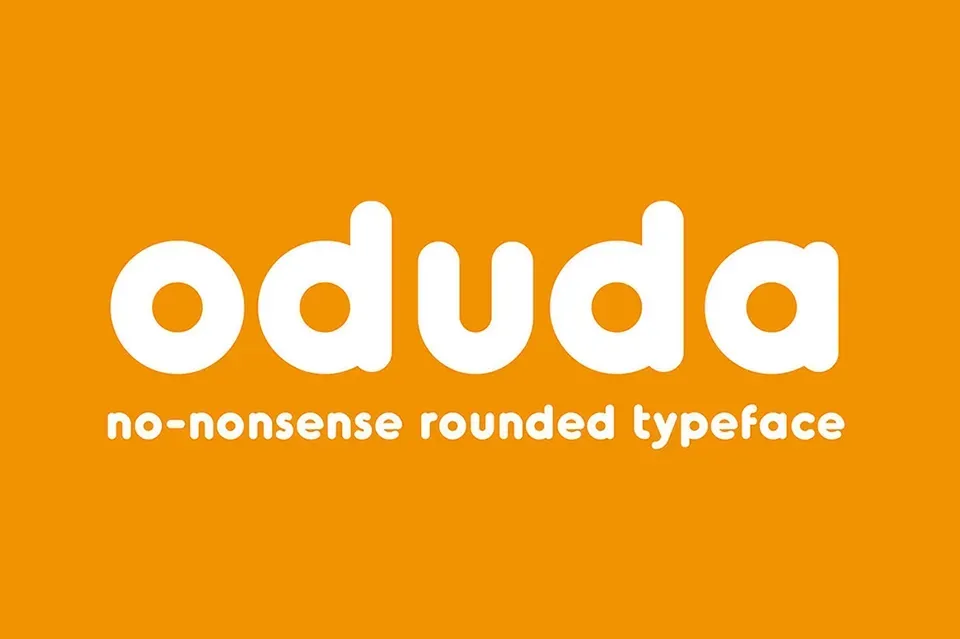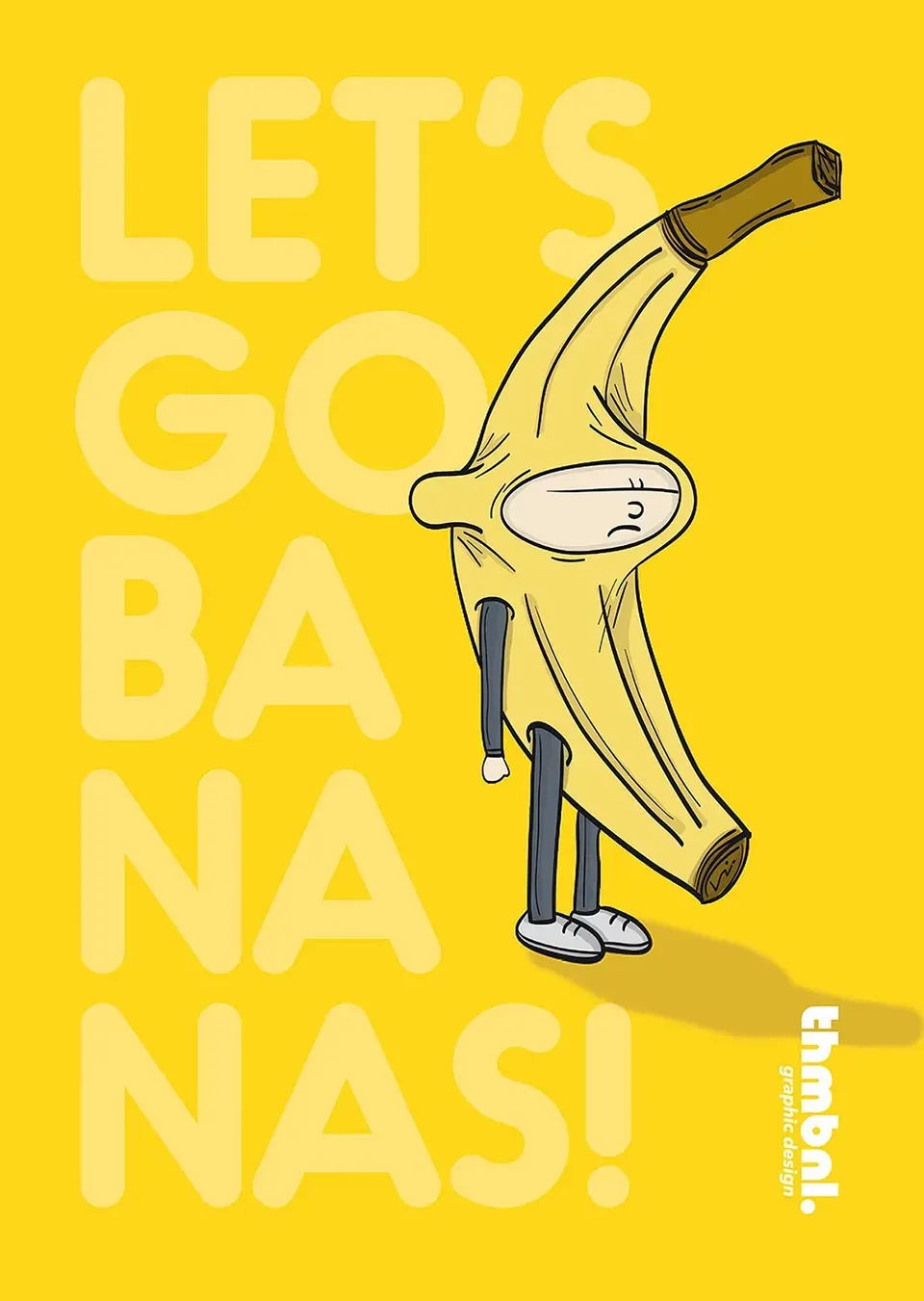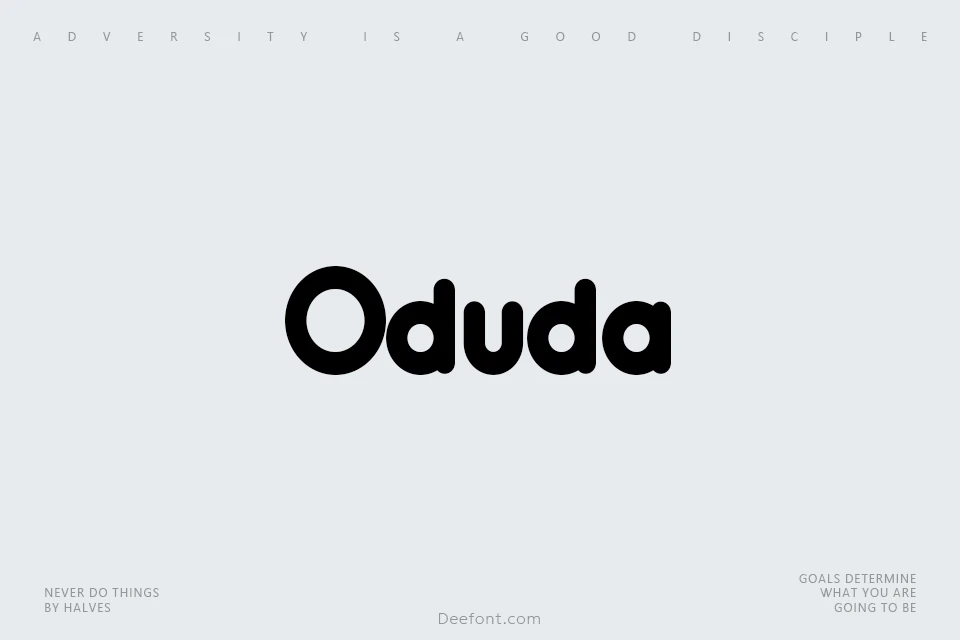
Oduda Font
Oduda Font is a bold and geometric rounded sans-serif typeface designed by Thom Niessink. Its smooth, circular shapes and low ascender height create a fun and modern aesthetic, making it ideal for creative projects such as branding, posters, logos, and packaging. The font family includes nine styles, offering versatility for both bold headlines and subtle text designs. Oduda’s approachable and playful character makes it perfect for designs that need to stand out while maintaining simplicity. Whether used for digital or print applications, Oduda Font adds a clean yet dynamic touch to any project, combining functionality with visual appeal.
Designed by:Thom Niessink Website